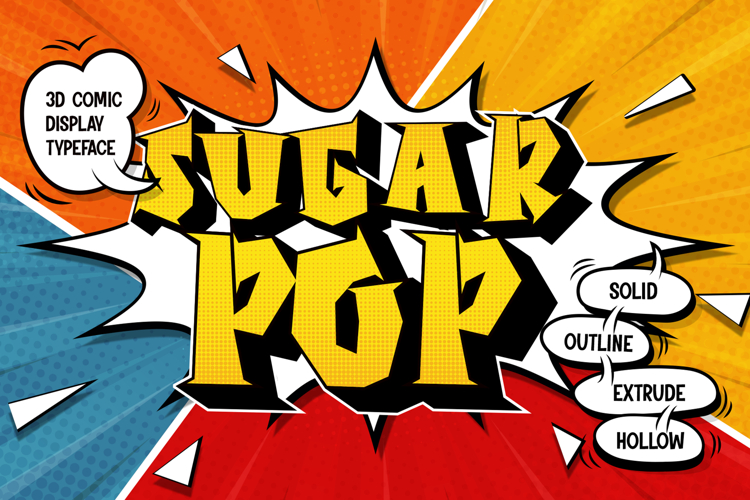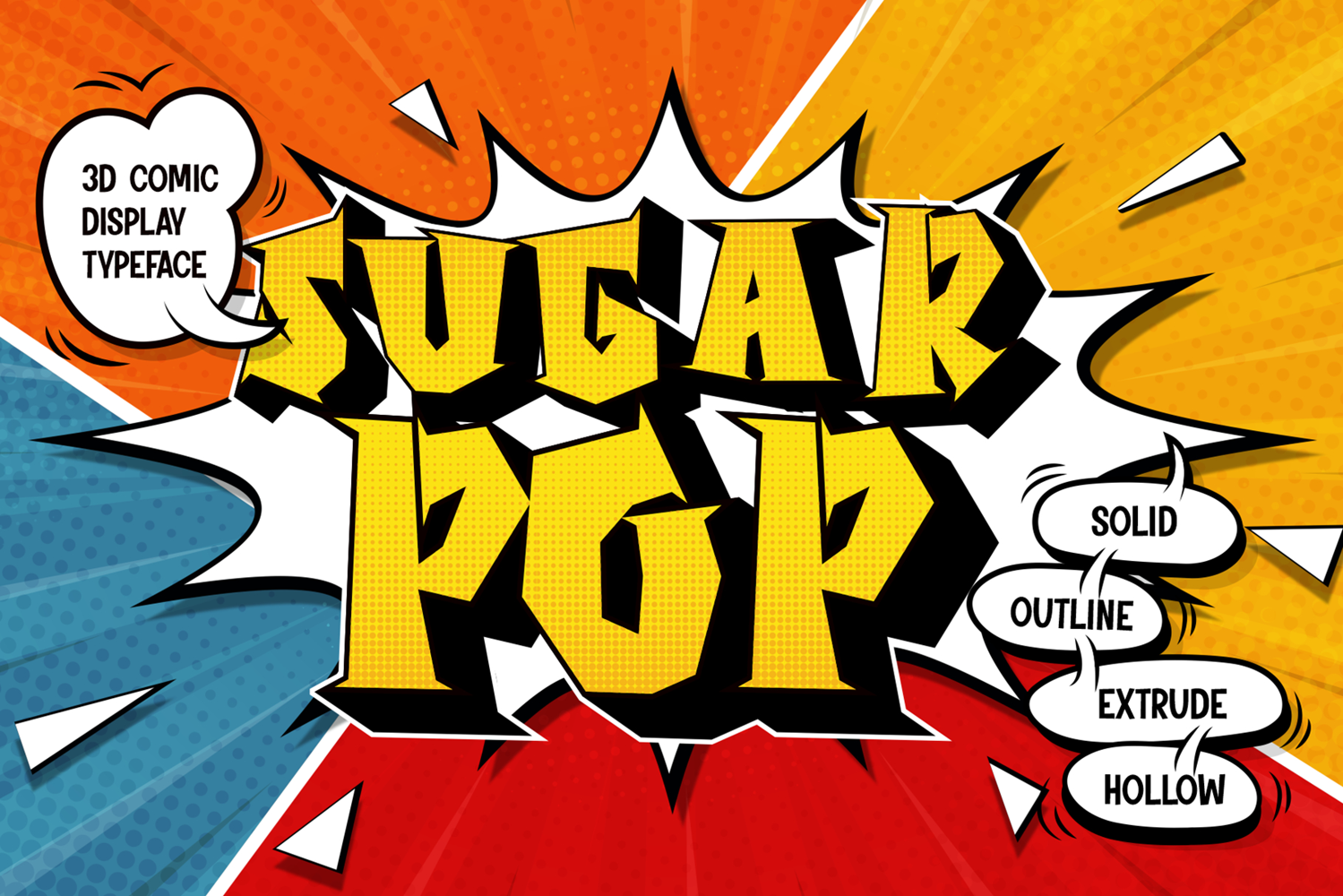
Sugar Pop - 3D Layered Comic Font
Sugar Pop is a vibrant 3D layered comic font that bursts with playful energy and dynamic style. Perfect for designers looking to add a fun, eye-catching element to their projects, this font brings a lively, cartoonish flair to any design.
🍬 Playful and Bold: With its thick, rounded letters and colorful layers, Sugar Pop instantly grabs attention and delivers a cheerful, bold statement. It is ideal for comic strips, posters, children’s books, and playful branding.
🎨 3D Layered Design: The 3D effect of Sugar Pop adds depth and dimension, making your text pop off the page. Each layer can be customized with different colors, allowing endless creative possibilities.
🌈 Vibrant and Versatile: Whether you're crafting a fun logo, a bright headline, or an animated graphic, Sugar Pop adapts effortlessly to bring a pop of joy and creativity to your work.
Sugar Pop is your go-to font for adding a burst of fun and excitement to any project. Its 3D layered design and comic-inspired style make it a versatile choice that’s sure to leave a lasting impression.